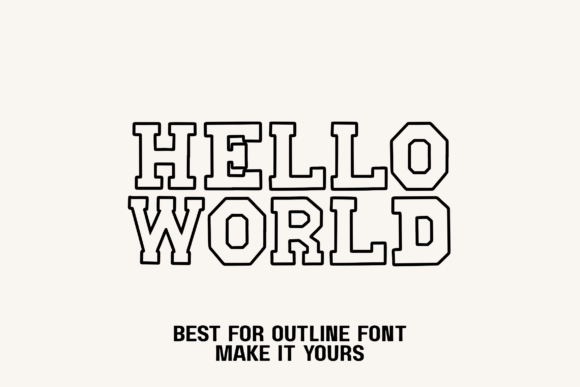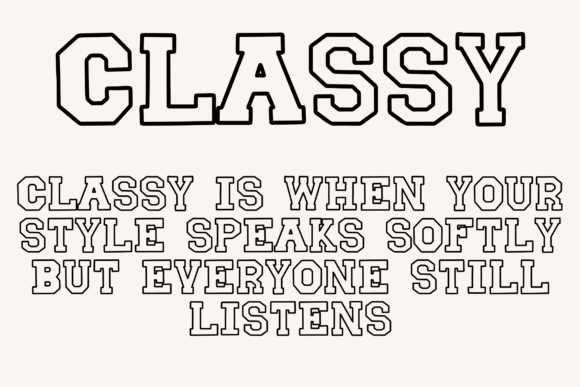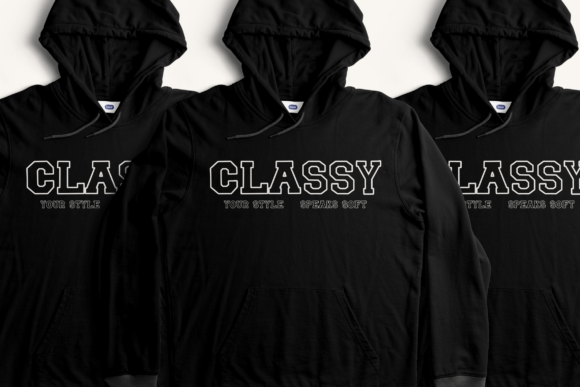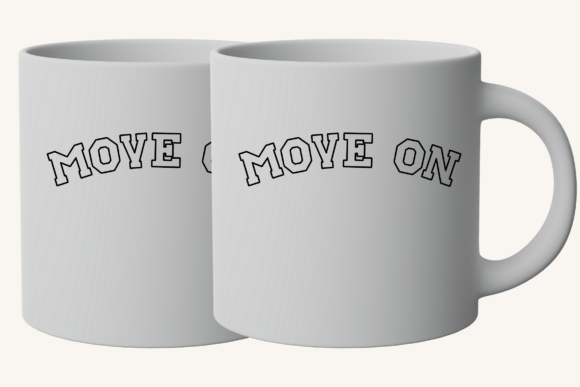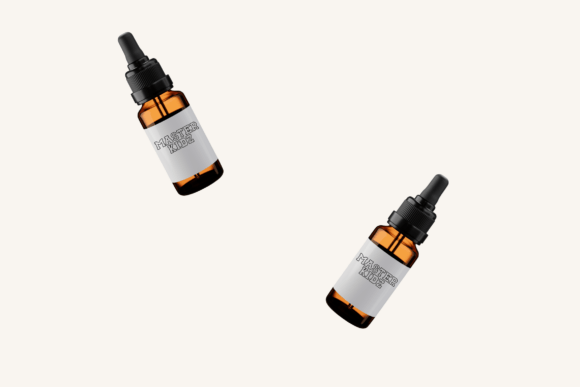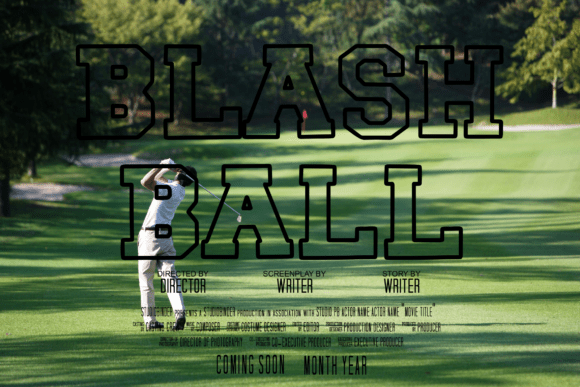
The Power of Blocksmith Outline: Elevate Your Designs with Collegiate Flair
I’ll never forget the time I was working on a sports logo project, tasked with creating a bold and eye-catching design that would make the client’s team stand out. As I scrolled through font after font, nothing seemed quite right – until I stumbled upon Blocksmith Outline. The sharp outer strokes and collegiate vibe instantly caught my attention, and I knew I’d found the perfect fit. In this article, we’ll dive into the world of Blocksmith Outline, exploring its features, uses, and what makes it a must-have for designers, crafters, and creative hobbyists.
A Honest Review of Blocksmith Outline
- ✨ Collegiate power with a twist: Blocksmith Outline brings the same energy as the original Blocksmith Varsity font, but with the added dimension of sharp outer strokes.
- ✅ Versatility: Perfect for sports logos, jersey numbers, varsity jackets, and bold design projects.
- 💥 Impactful designs: The outlined style adds a layer of style and sophistication to any project.
While Blocksmith Outline is an amazing font, there are a few things to keep in mind:
- ⚠️ Legibility at small sizes: As with many outlined fonts, Blocksmith Outline can become a bit tricky to read at very small sizes.
- 🤔 Overuse of OpenType features: While the font’s OpenType features are incredibly useful, overusing them can make the design look cluttered.
The Backstory of Blocksmith Outline
While the exact origin of Blocksmith Outline is unclear, it’s likely that the font was inspired by the classic collegiate lettering of American sports teams. The original Blocksmith Varsity font was probably created with the intention of capturing the spirit of varsity jackets and sports teams, and the outlined version takes that to the next level.
Q: What makes Blocksmith Outline so special?
A: The combination of sharp outer strokes and a classic collegiate vibe makes Blocksmith Outline a standout font for bold designs.
Q: Is Blocksmith Outline difficult to read?
A: As with many outlined fonts, Blocksmith Outline can be a bit tricky to read at very small sizes, but it’s generally clear and legible at larger sizes.